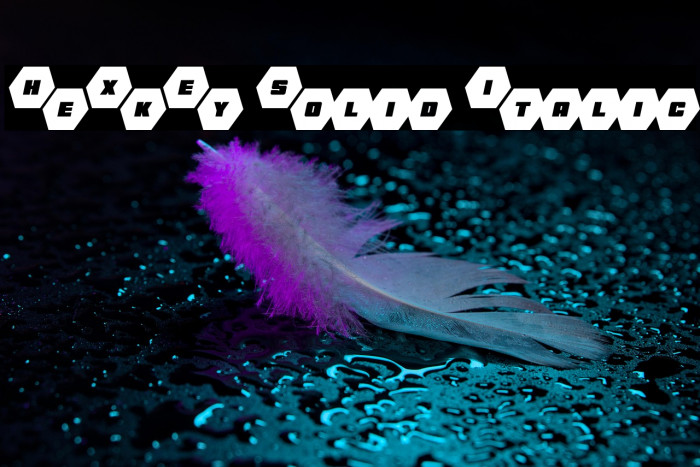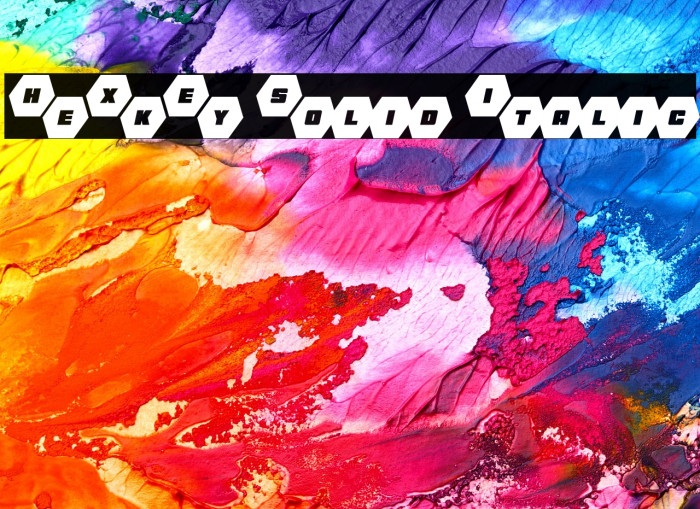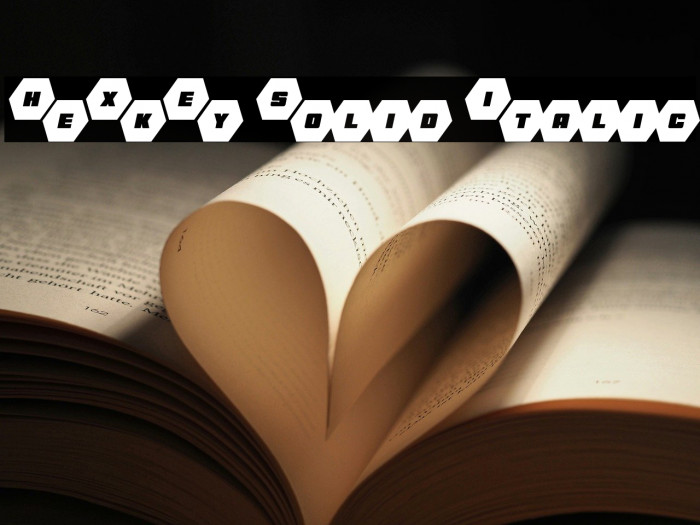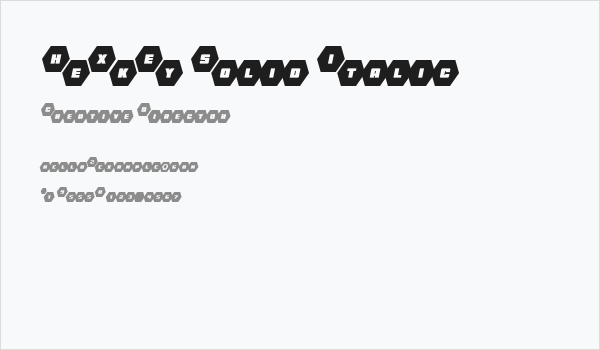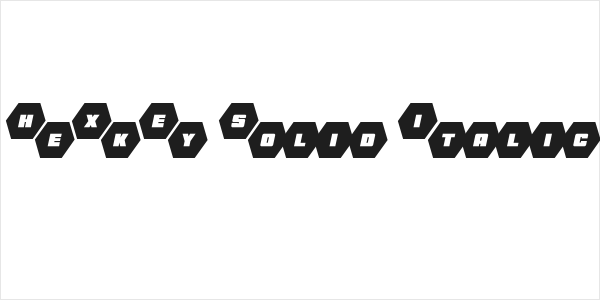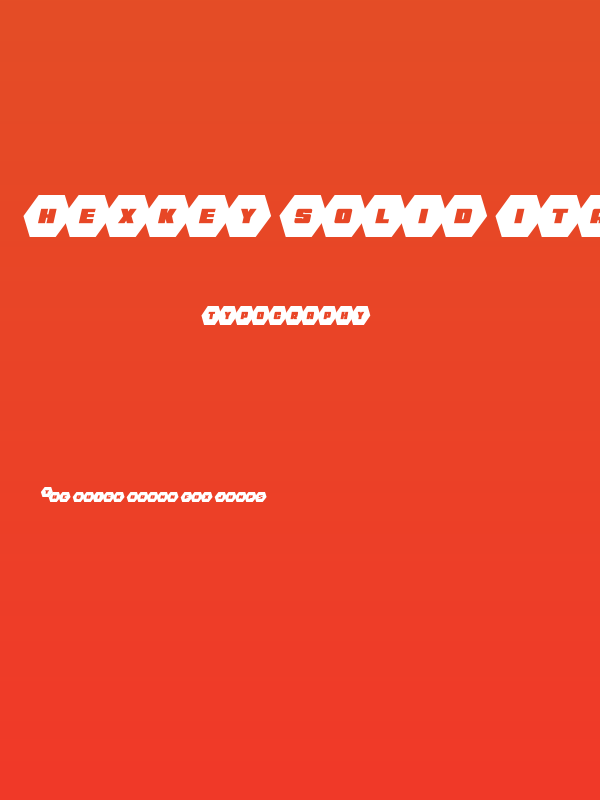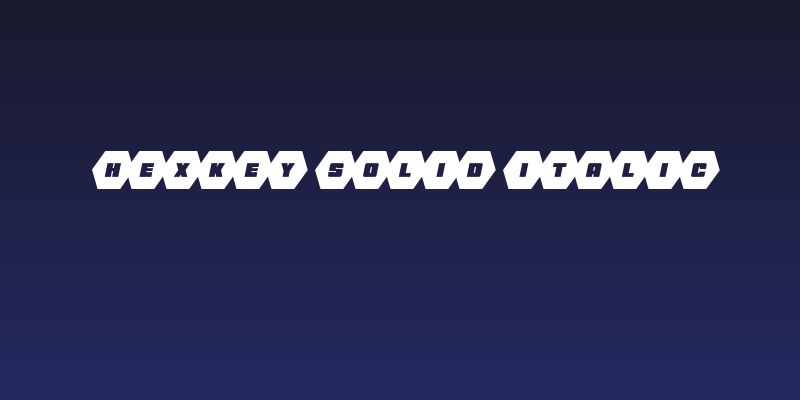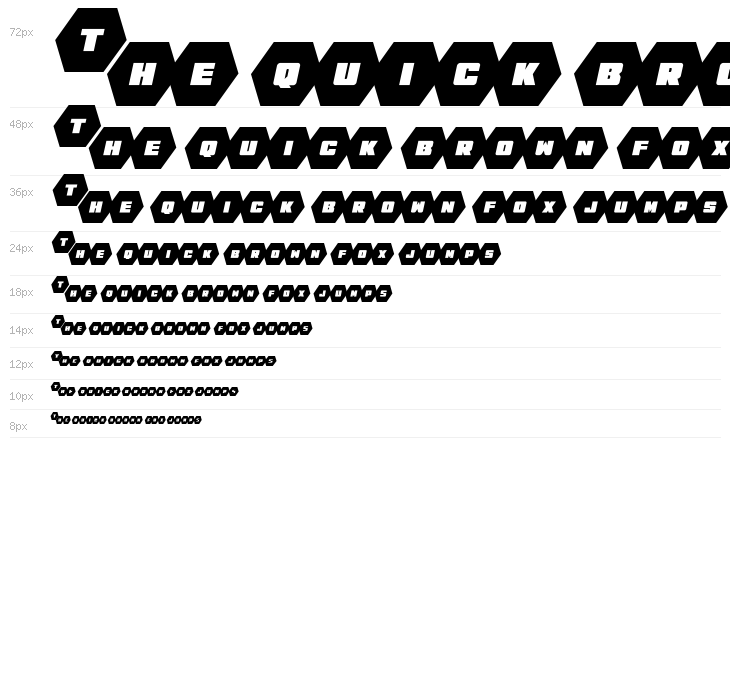
HeXkEy Solid Italic Font
HeXkEy Solid Italic Description
This font features a bold, geometric style with each character enclosed in a hexagonal shape. The solid, italicized letters create a strong, dynamic appearance, making it ideal for attention-grabbing designs. The uniformity of the hexagon shapes provides a unique and cohesive look across all characters, including uppercase, lowercase, numbers, and special symbols. The italic slant adds a sense of motion and modernity, enhancing its visual impact. This font is perfect for projects that require a futuristic or tech-inspired aesthetic.
| Proposed Projects | Ideal for tech-themed designs, futuristic branding, video game titles, and sci-fi posters. |